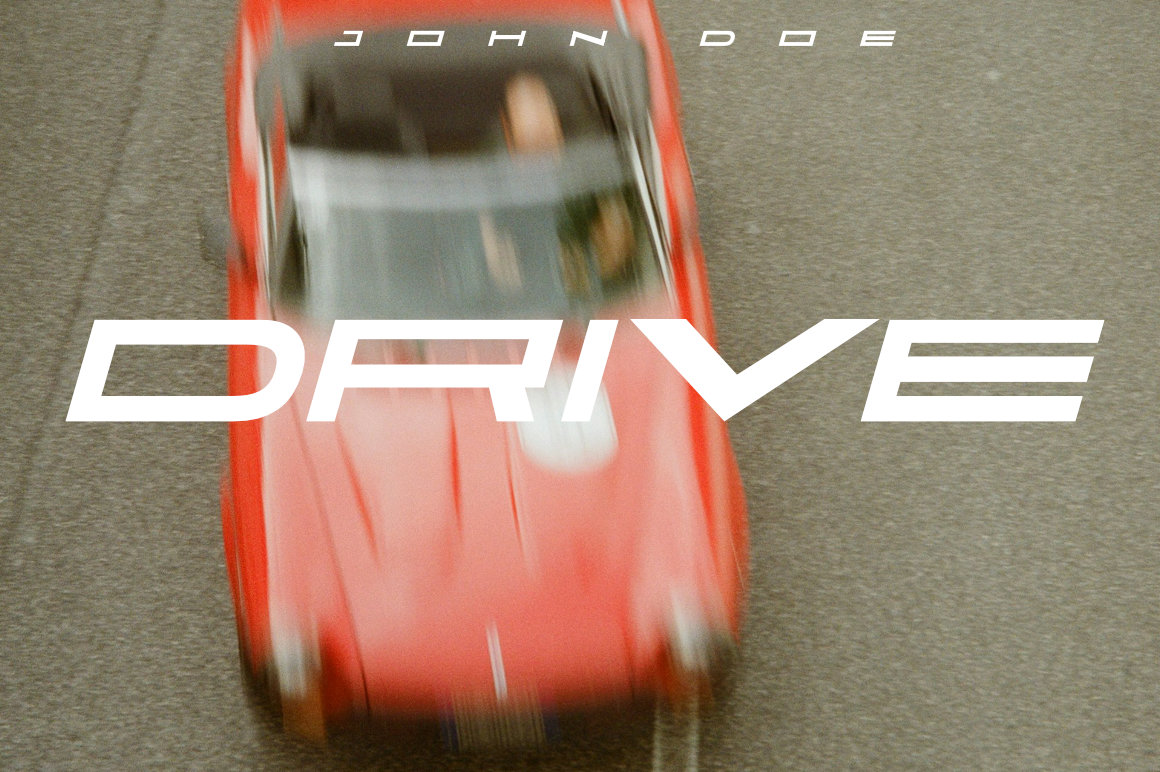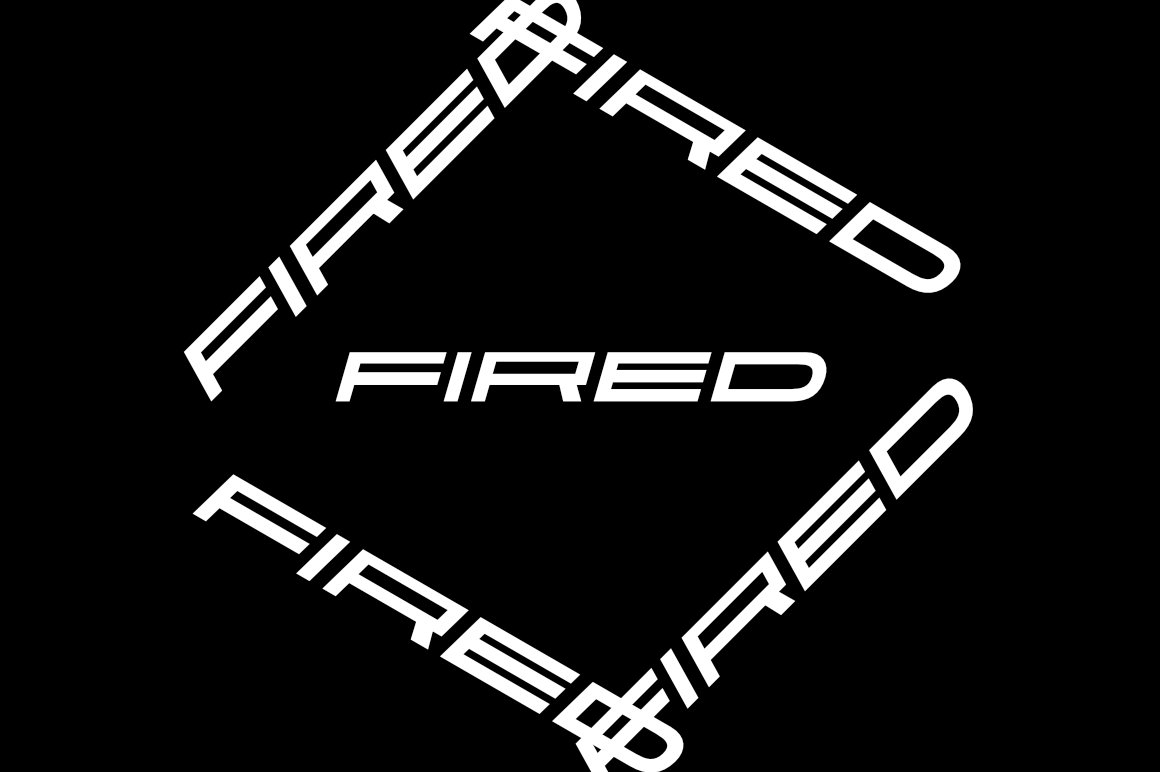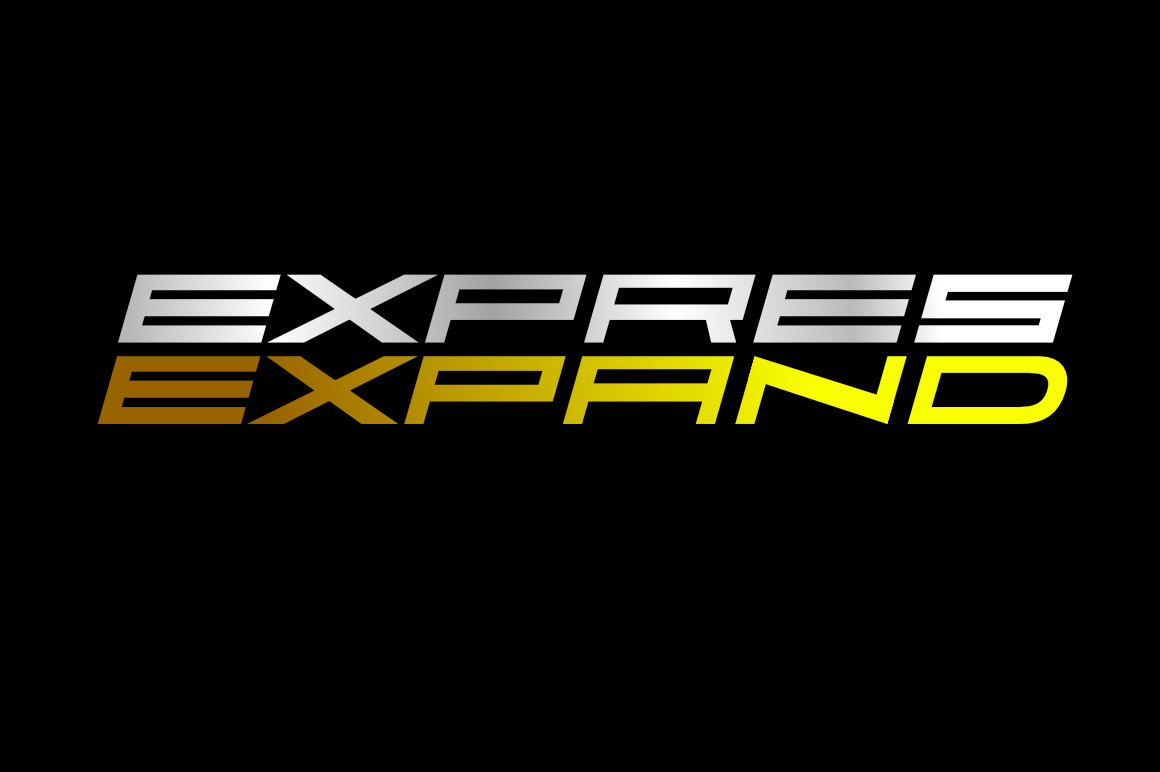
Faqro Extended Expand Italic drive font Font
Feel the adrenaline rush with every curve. This font is designed to capture the speed and excitement of the racetrack. Bold strokes and sharp edges evoke the thrill of competition. Perfect for creating a high-octane, dynamic design.
Recommended using in
- Ads, Branding, Title and much more